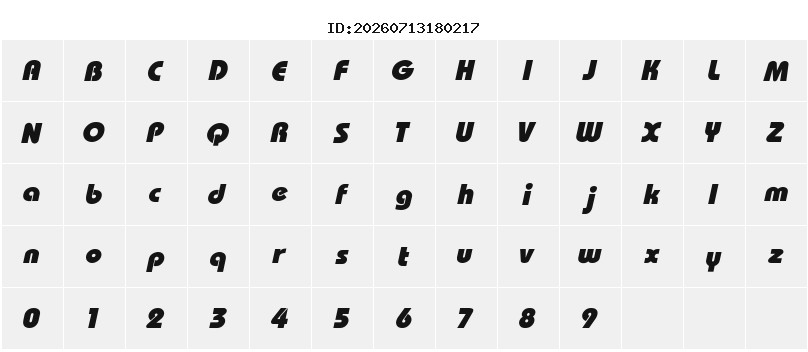
• Font Name: Bahamas_HeavyX
• Full Font Name: Bahamas_HeavyX
About Bahamas_HeavyX.ttf
Bahamas_HeavyX.ttf is a modern, elegant sans-serif font designed for ultimate readability and visual harmony. Perfect for branding, headlines, web design, and print materials.